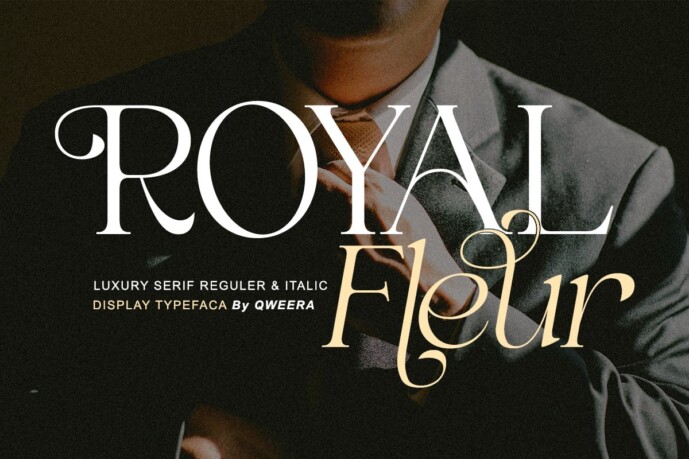
Royal Fleur Font
Designer: IdhhamCholid
Royal Fleur – Elegant Luxury Serif Font for Regal Branding
Royal Fleur is a majestic serif typeface that exudes aristocratic elegance with its refined curves and sophisticated details. Featuring both Regular and Italic styles with royal alternates and ligatures, this font is meticulously crafted for premium branding, luxury logos, high-end packaging, and editorial designs fit for royalty.
Where Regal Elegance Meets Contemporary Luxury
With its ornamental serifs and graceful italic variant, Royal Fleur delivers exceptional versatility for elite brands. The carefully designed alternates and ligatures enable flawless typographic compositions that radiate sophistication and nobility.